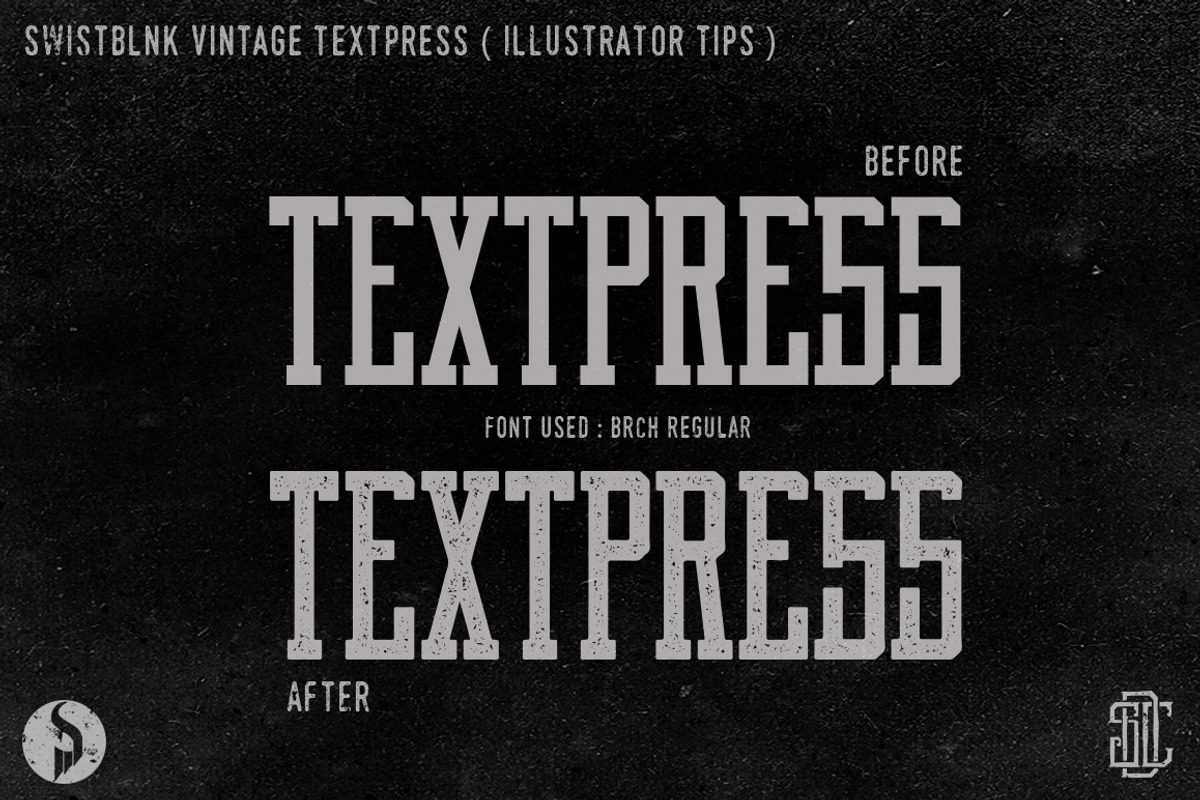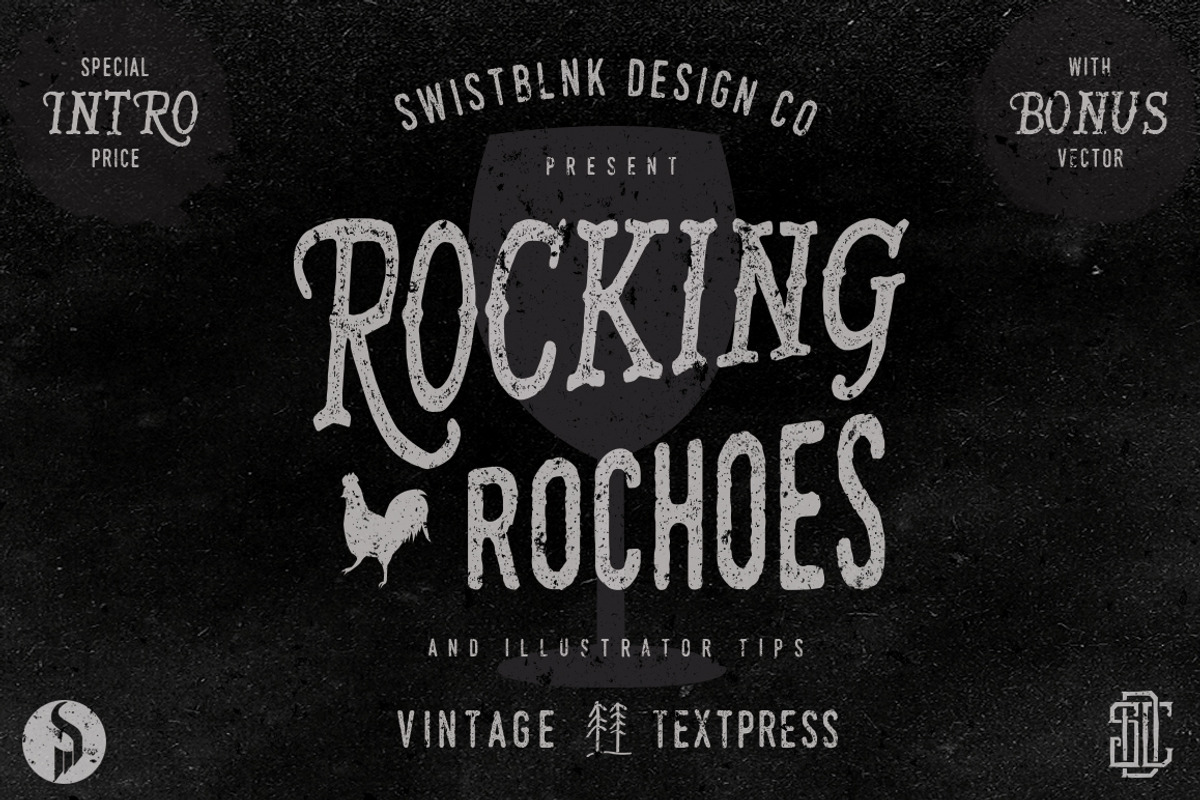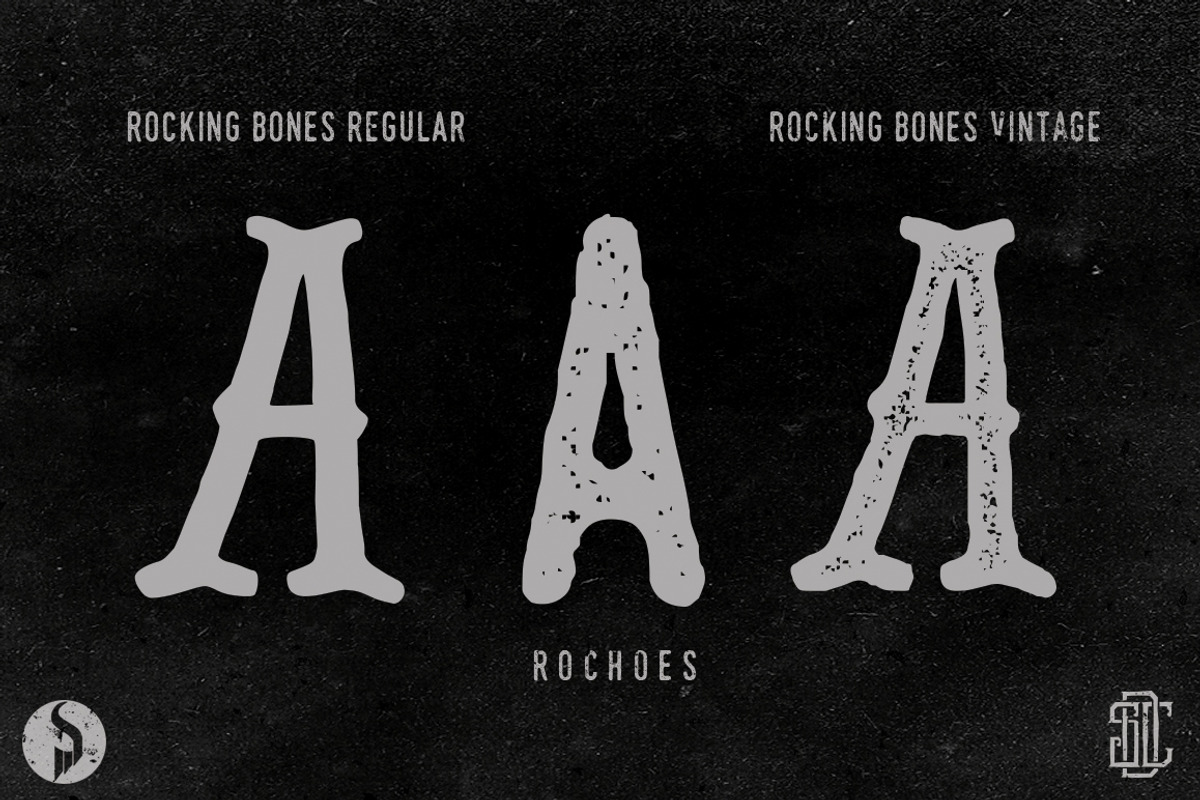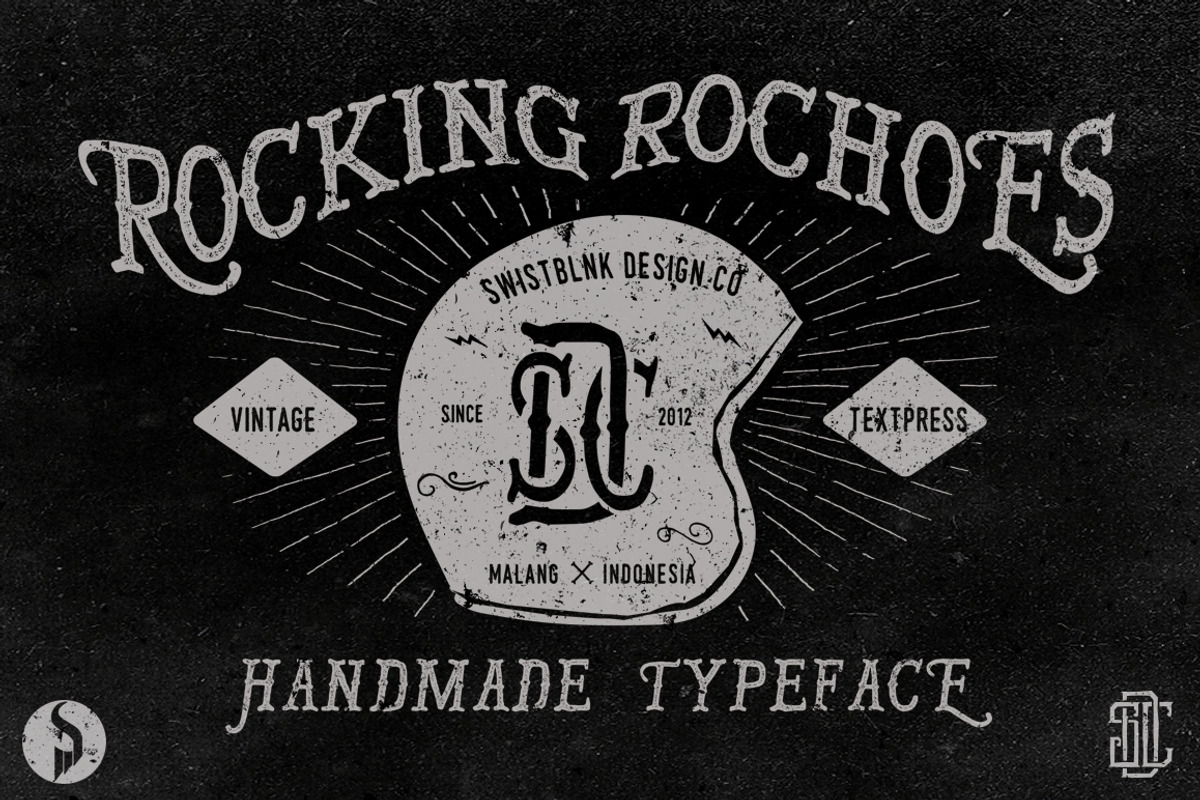
Rocking Rochoes Typeface
Rocking Rochoes Typeface by Swistblnk Std. is a font selected for branding, posters, packaging, typography.
Why Rocking Rochoes Typeface is worth a look
Rocking Rochoes Typeface by Swistblnk Std. fits naturally into Branding, posters, packaging, typography.